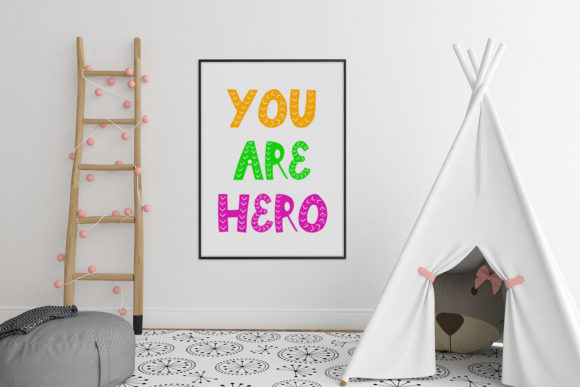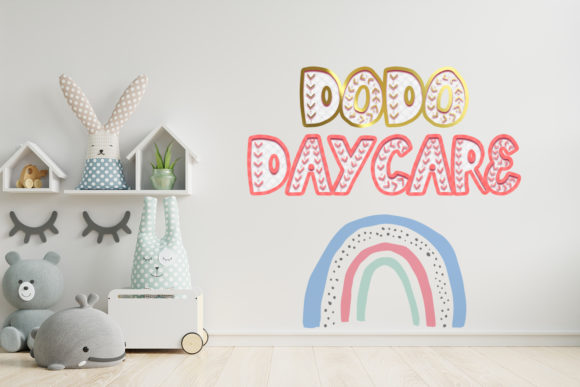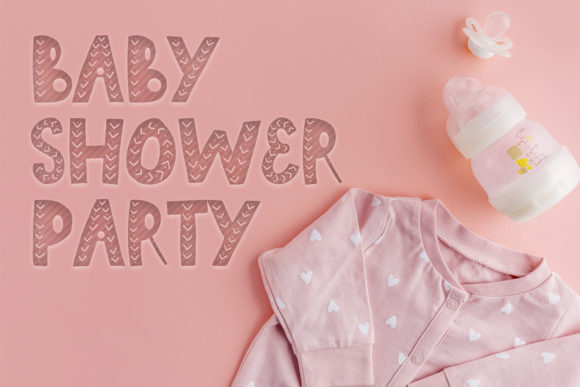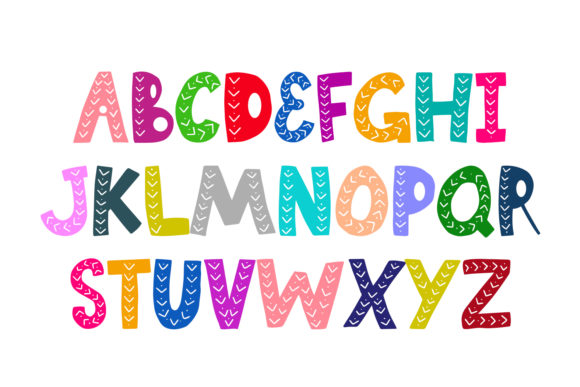
Introduction to Nursery Font
Have you ever been working on a creative project, and you just can’t seem to find the right design element to tie everything together? I know I have! That’s why I’m always on the lookout for high-quality design resources like the lovely Nursery Font. This cheerful display font has the power to elevate even the most mundane designs and make them truly spectacular.
With its incredibly versatile style, the Nursery Font is a valuable addition to any designer’s toolkit. Whether you’re working on a personal project or a commercial design, this font is sure to add a touch of whimsy and personality to your work. Plus, with its transparent background, you can easily place it on top of any image or design element without worrying about it getting lost in the background.
Nursery Font Key Features
- High-quality design resource ideal for creative projects, including children’s books, educational materials, and nursery decorations.
- Comes with a transparent background, allowing for easy customization and flexibility in design.
- Includes a large character set, covering a wide range of languages, making it a versatile design resource.
- Features a unique, playful style that is perfect for adding a touch of whimsy to any design project.
Honest Review: Nursery Font
As a designer, I was excited to try out the Nursery Font, a free download that promises to bring a touch of whimsy to any creative project. From the moment I opened the file, I was struck by the high quality of the font.
Here’s what I like about Nursery Font: ✨ It’s incredibly versatile, making it perfect for a wide range of design applications, from children’s books to nursery decor. ✨ The transparent background option is also a big plus, allowing me to easily layer the font over other design elements. ✨ The font is also highly customizable, making it easy to adjust the size and color to suit my needs.
However, I did encounter a few limitations: ⚠️ The font is not as comprehensive as some other design resources I’ve used, with a limited character set and no support for non-Latin languages. ⚠️ Additionally, the font can be a bit overwhelming in large quantities, making it difficult to read at certain sizes.
Overall, I’m impressed with the Nursery Font, and I would definitely recommend it for designers working on children’s projects or looking for a playful, whimsical touch. While it’s not without its limitations, the font’s high quality and versatility make it a valuable addition to any design resource library.
- Perfect for children’s projects or nursery decor
Nursery Font
Tips for Getting the Most Out of Nursery Font
Experiment with different font sizes, colors, and styles to create a unique look. Use the font in combination with other design elements to add depth and interest to your project.
The Nursery Font is perfect for children’s party invitations, nursery decor, and educational materials. It’s also great for creating playful and whimsical designs for social media, blog posts, and marketing materials.